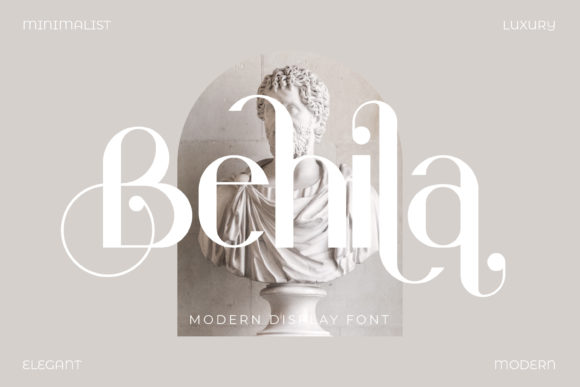
Introducing Behila Font, the sophisticated serif font crafted to enhance your designs. Experience the allure of a font that seamlessly blends the elegance of classic serifs with a modern twist. Behila is a symphony of grace, meticulously designed to elevate your creative endeavors.
Unleash the power of Behila and witness how it effortlessly amplifies your messages, captivating your audience with its charm and poise. Be it a website, social media campaign, or print design, Behila has the versatility to transform your ideas into captivating masterpieces.
Step into a realm of sophistication and elegance as you immerse yourself in the world of Behila. Its intricate details and flowing curves exude a sense of timeless beauty, adding an aura of refinement to your designs. Whether you seek to create enchanting logos, compelling headlines, or captivating branding, Behila will effortlessly elevate your vision.
With Behila, you'll discover a world of endless possibilities. Its versatility extends from the delicate strokes of wedding invitations to the bold presence of marketing materials. Experience the joy of crafting designs that resonate with your audience, leaving an indelible mark on their minds.
Embrace the allure of Behila and embark on a creative journey like no other. Let its timeless elegance guide you, adding a touch of sophistication to your designs that will leave them breathless.